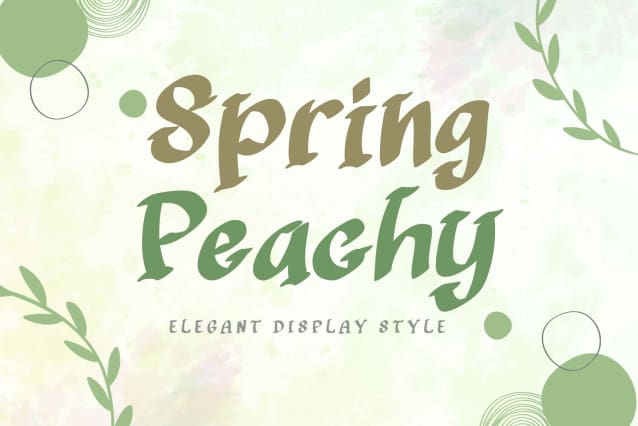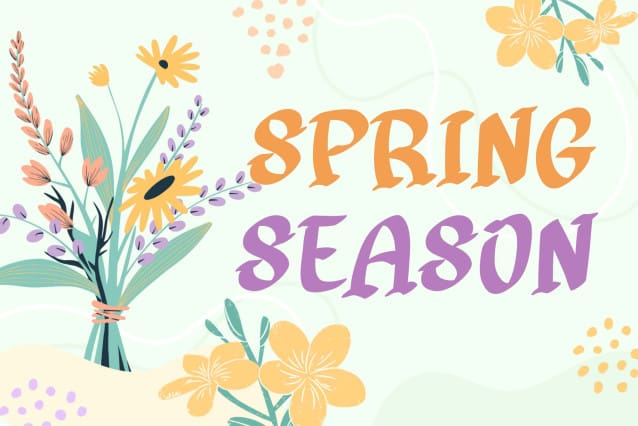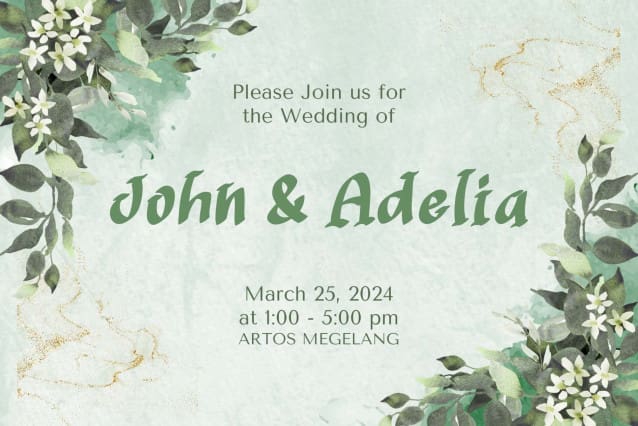
Spring Peachy Font
Spring Peachy Font is a unique and elegant display font. This font comes with uppercase, lowercase, numbers, punctuation, and multilingual support. Perfect for banners, logos, spring, summer, holidays, stickers, branding, posters, SVG, KDP, Procreate, and others.